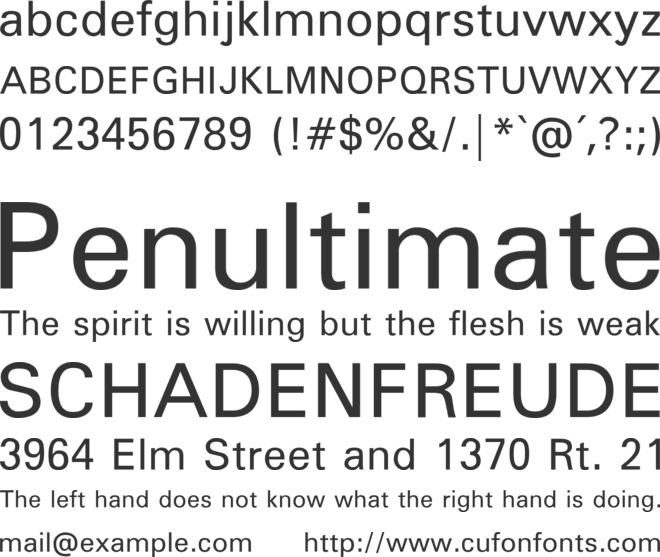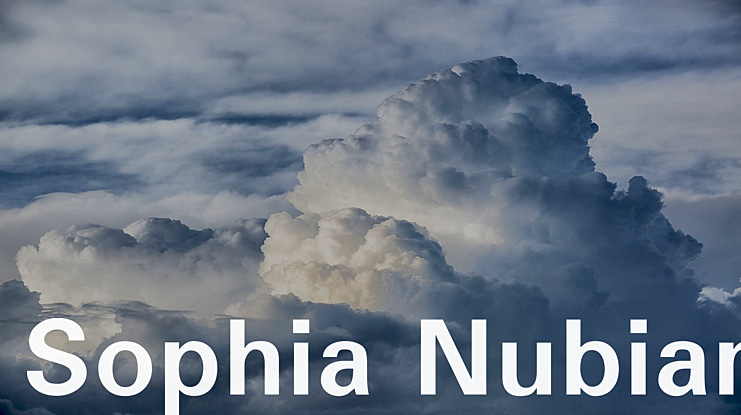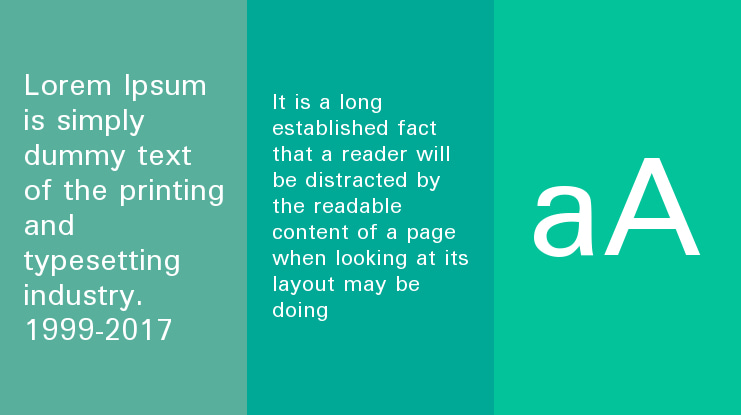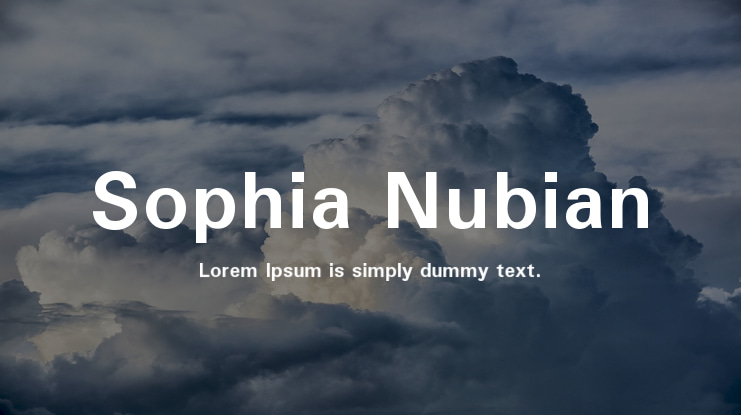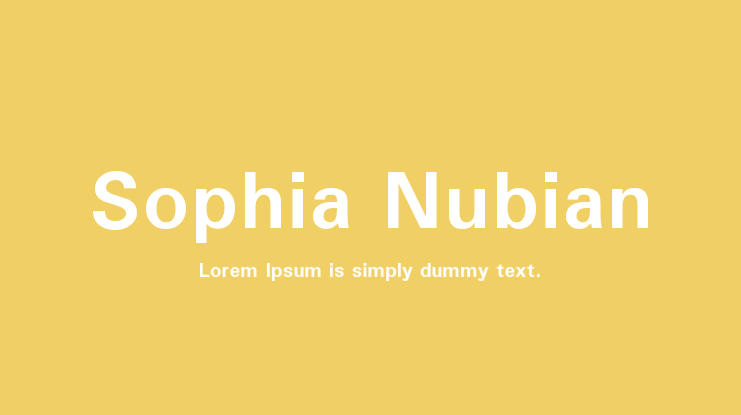
Walt Agee, Victor Gaultney, Lorna Priest
Sophia Nubian is a sans serif, Unicode-compliant font based on the SIL Sophia (similar to Univers) typeface. Its primary purpose is to provide adequate representation for Nubian languages which use the Coptic Unicode character set. Since Nubian languages do not use casing, uppercase characters are not included in this font. A basic set of Latin glyphs is also provided.